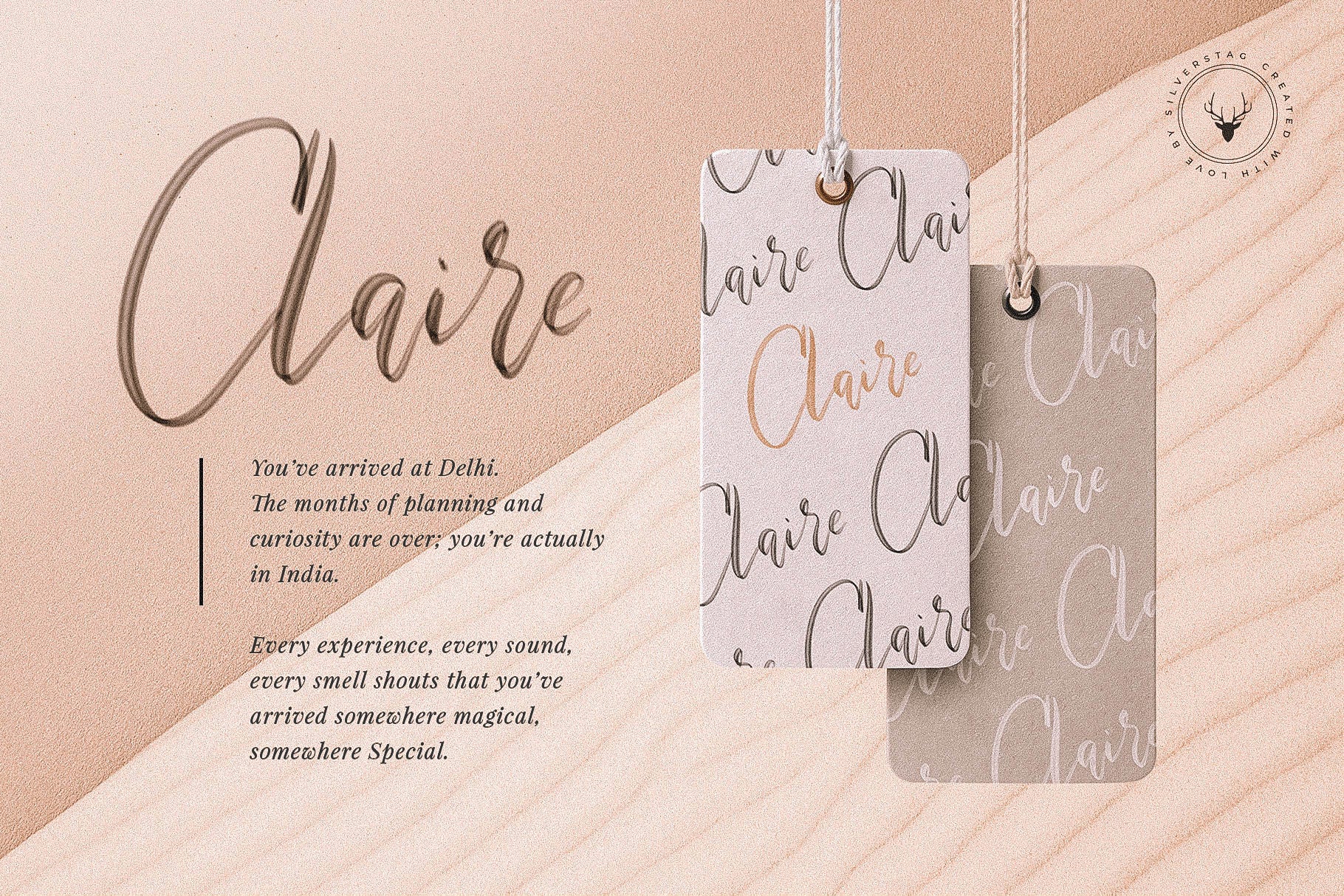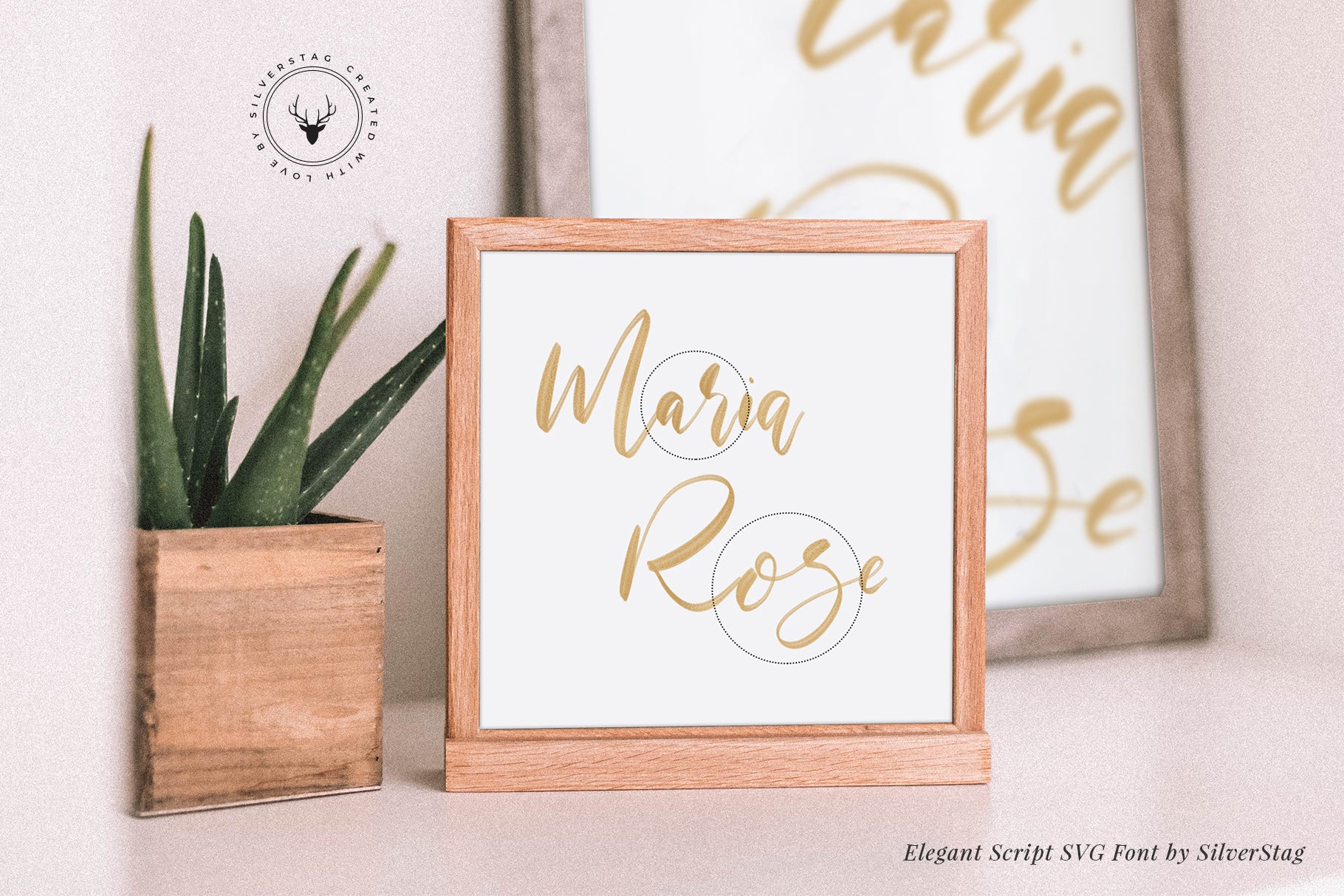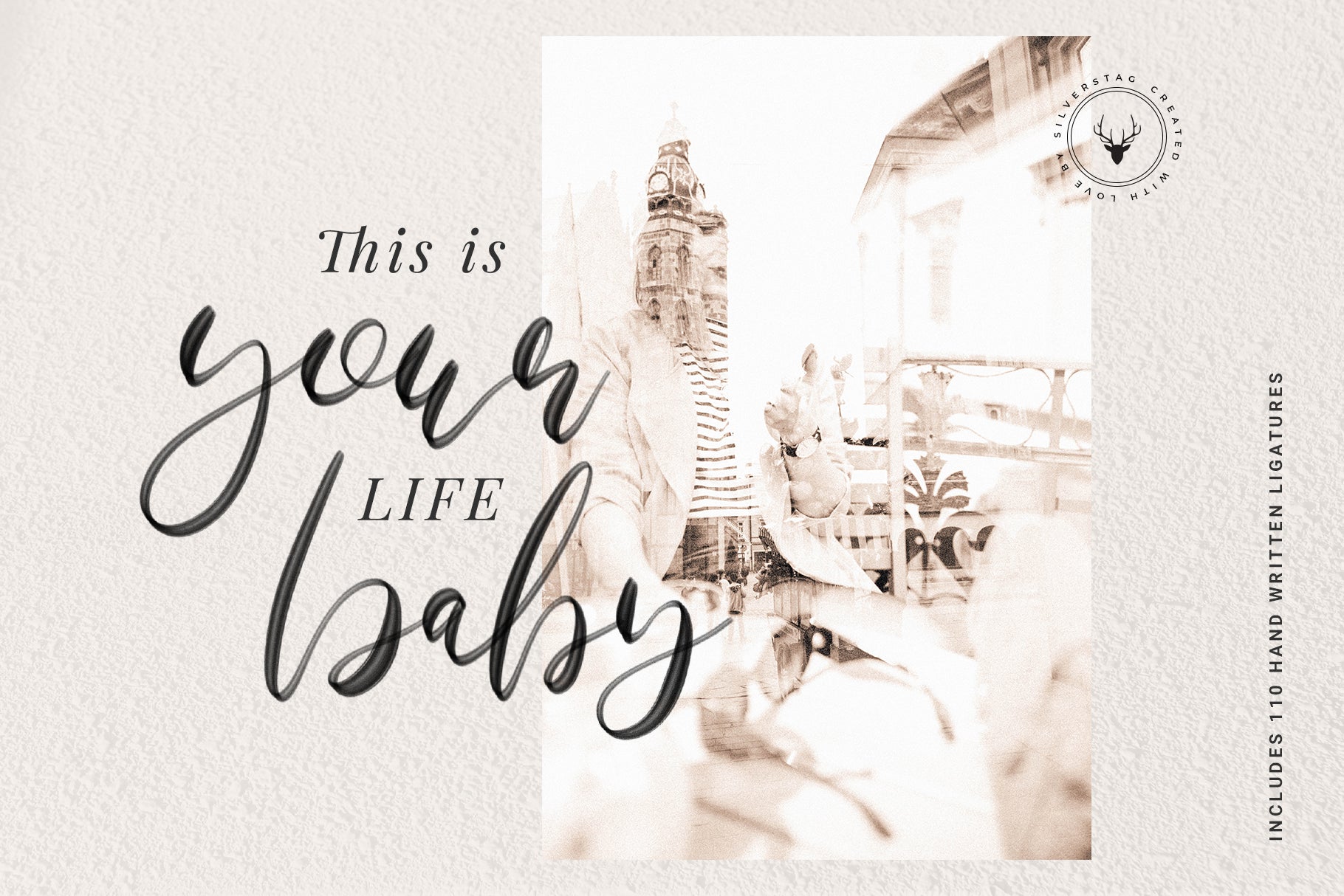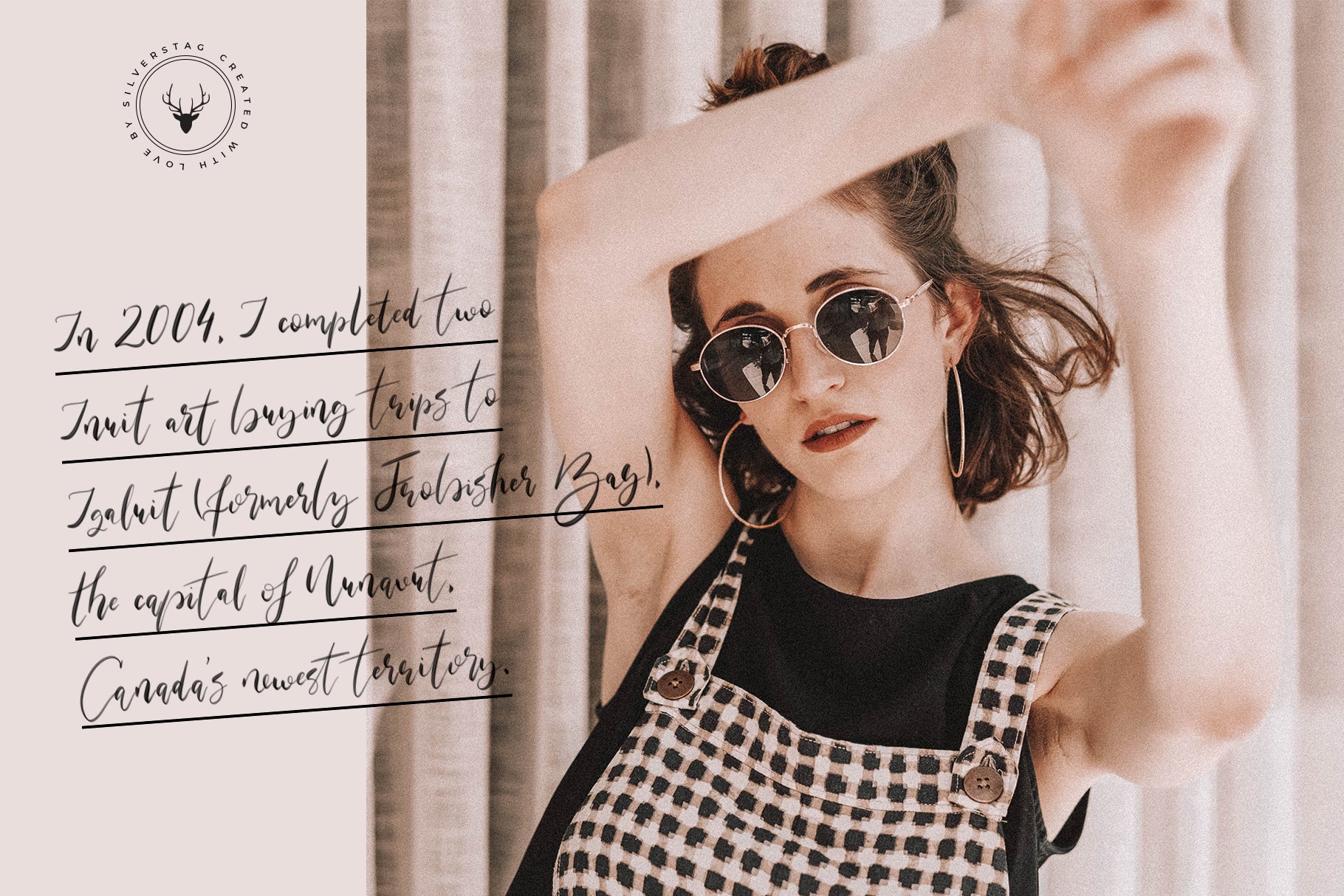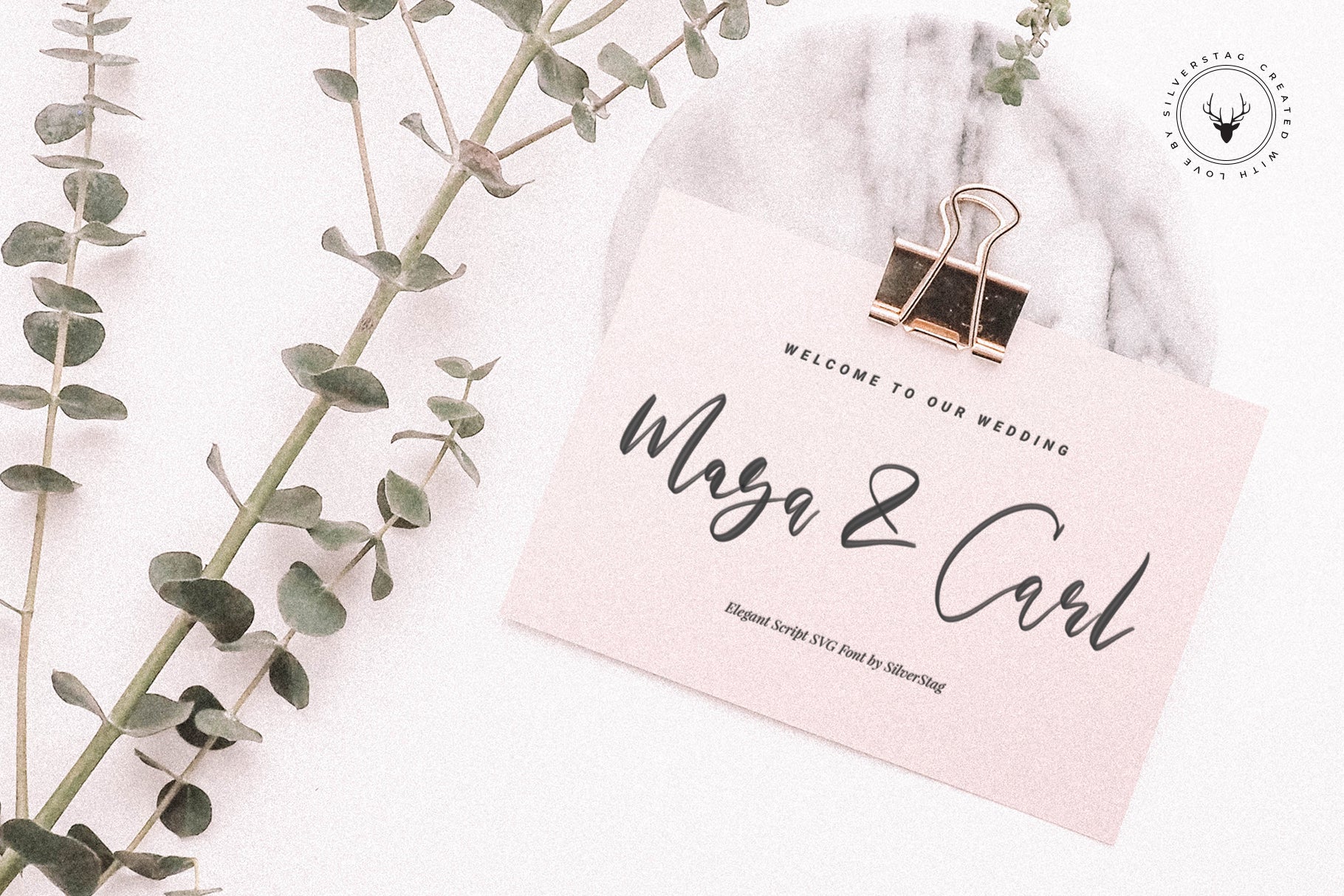
• Maria Rose script SVG font hero in dark script over a soft pale blossom photo
• Maria Rose script SVG font spelling Merci mon amour over a photo of an embracing couple
• Maria Rose script SVG font July Memories specimen with a red canyon and a blanket-wrapped couple
• Maria Rose script SVG font Claire script with hanging Claire tags and a Delhi travel note
• Maria Rose script SVG font as a framed gold print propped beside a potted aloe
• Maria Rose script SVG font on a Natalie and Brian kraft wedding card with dried poppy pods
• Maria Rose script SVG font spelling This is your life baby with a sepia street photo
• Maria Rose script SVG font postcard with an Iqaluit Nunavut travel note over a woman in sunglasses
• Maria Rose script SVG font on a Masa and Carl wedding welcome card with eucalyptus sprigs
Maria Rose Elegant Script SVG Font
Maria Rose is an elegant hand-drawn SVG script font designed to bring a natural, high-end handwritten feel to your creative work. With its true watercolor texture and fluid strokes, this font is perfect for branding, wedding invitations, editorial spreads, and social media graphics.
Whether you’re creating a logo for a luxury brand or a romantic wedding suite, Maria Rose offers elegance, authenticity, and versatility in one timeless package.